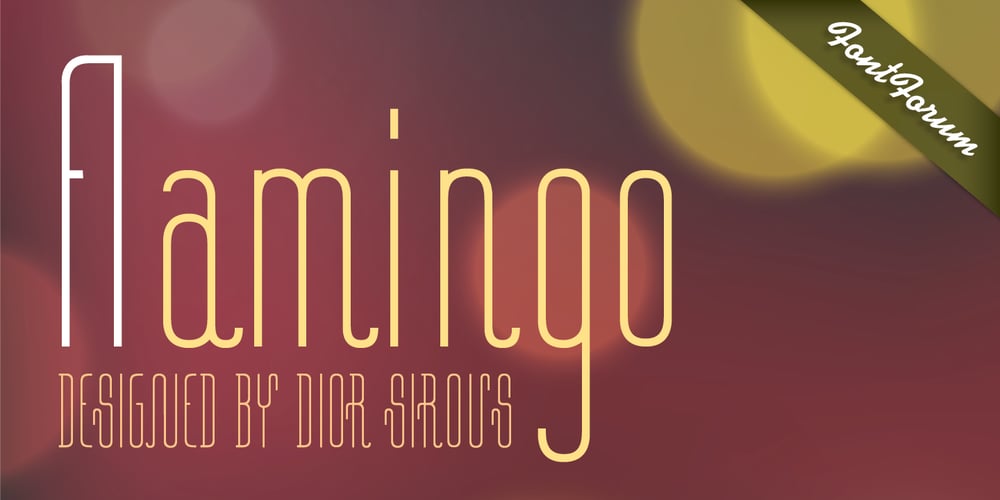
Flamingo Font Family was designed by Dior Sirous and published by URW Type Foundry. Flamingo contains 1 styles and family package options. The design of the typeface Flamingo by Dior Sirous was inspired by this beautiful bird, creating long slim lines with soft curves at the ends. It is best suited for display use in Art Deco style.